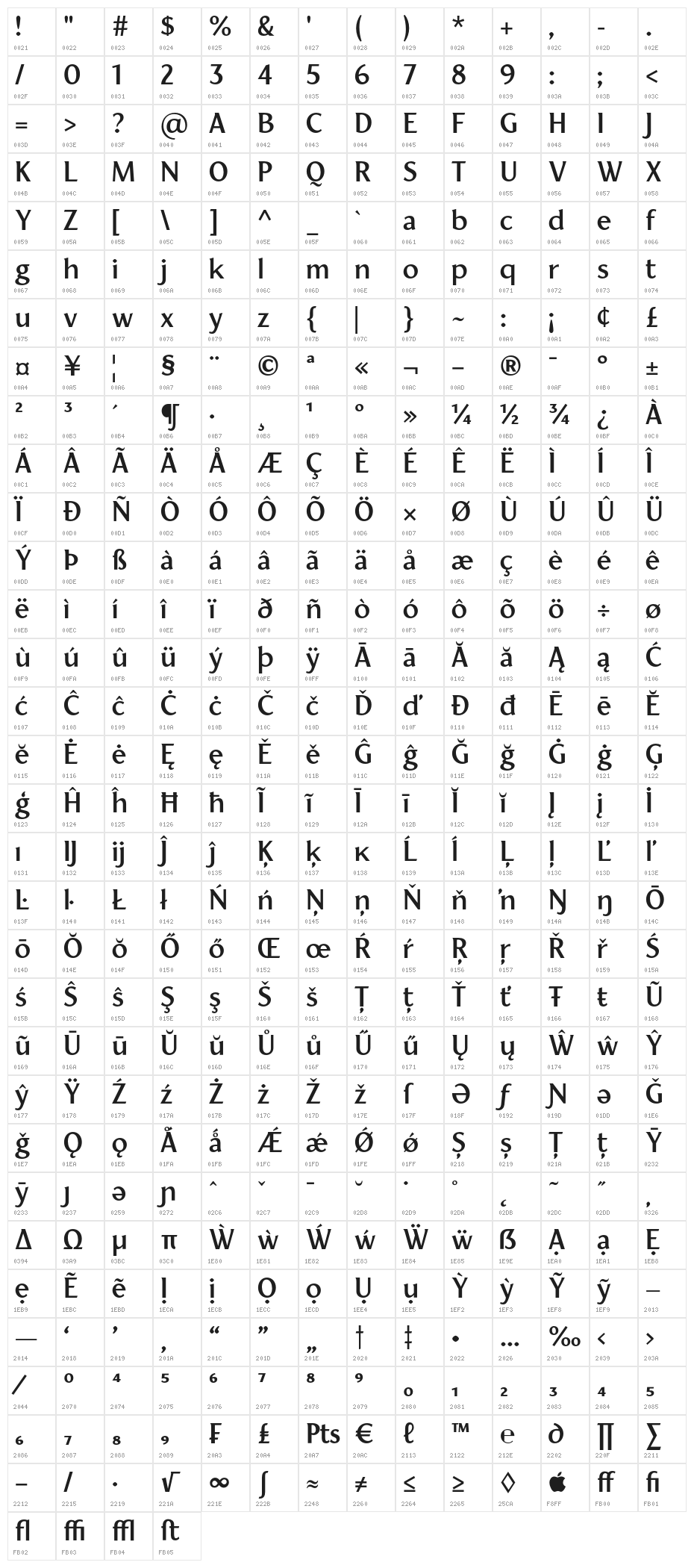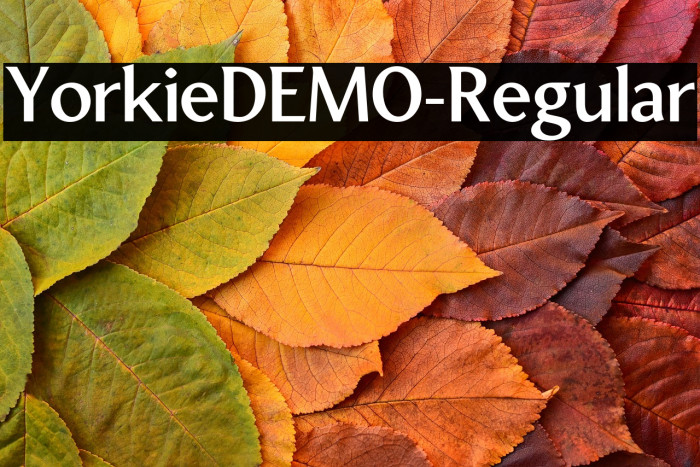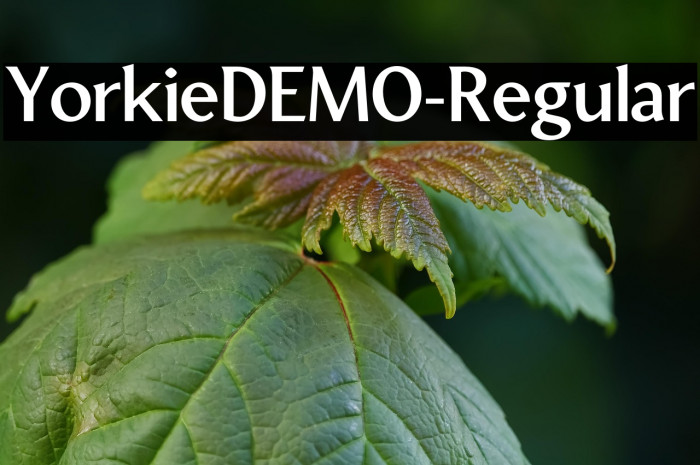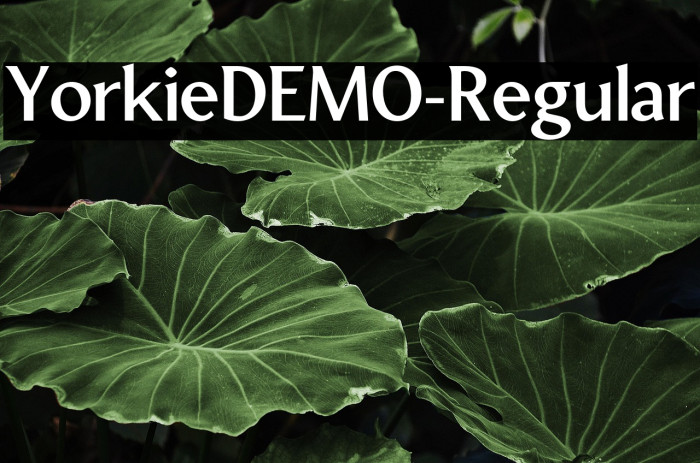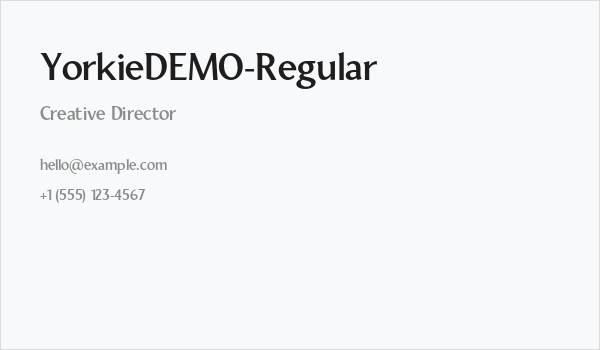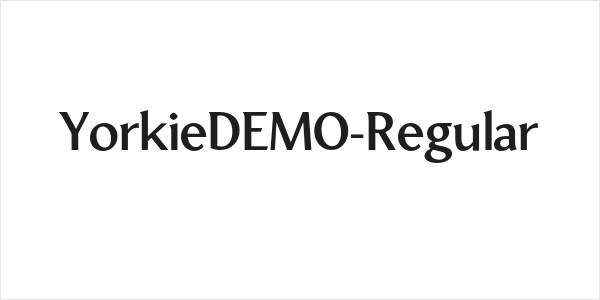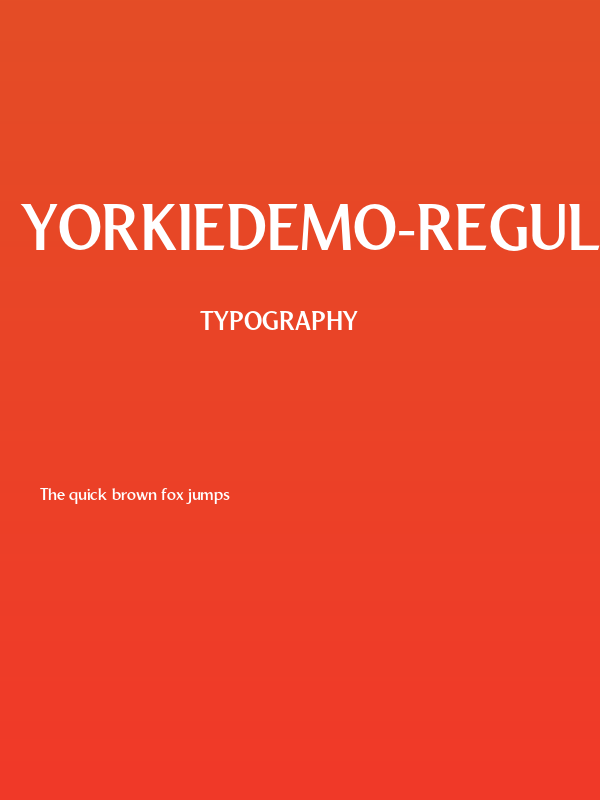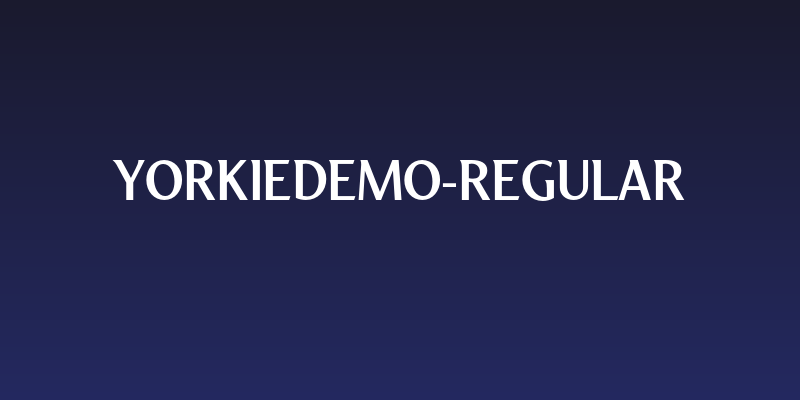
YorkieDEMO-Regular Font
YorkieDEMO-Regular Description
This font features a clean and modern design with a strong presence. The uppercase letters are bold and well-defined, offering a sense of authority and clarity. The lowercase letters maintain a consistent style, providing a harmonious balance between the characters. The numerals are distinct and easy to read, making them suitable for various applications. Special characters are included, enhancing the font's versatility. The overall appearance is sleek and professional, making it ideal for both digital and print media.